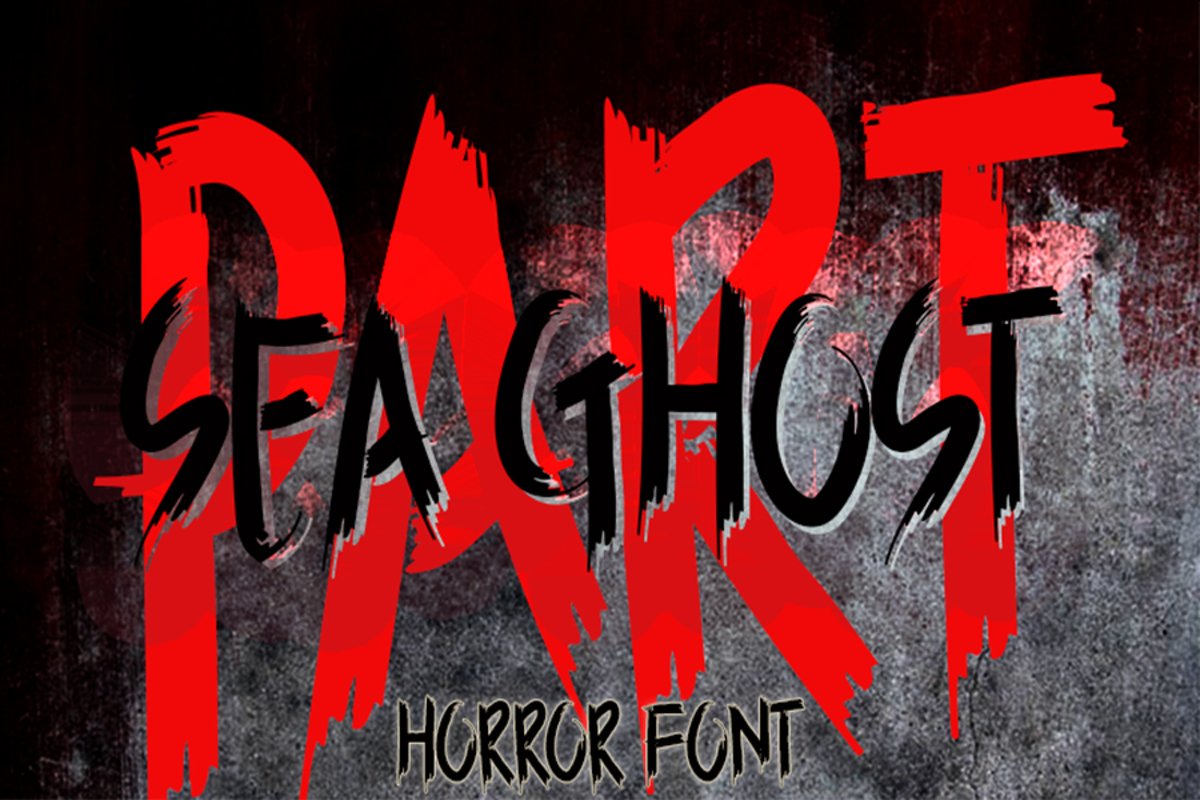
Sea Ghost
SEA GHOST
Sea Ghost is a modern and fun handwritten font with an incredibly scary feel. This font is the perfect fit for all of your logos, branding, social media, and crafty DIY projects.